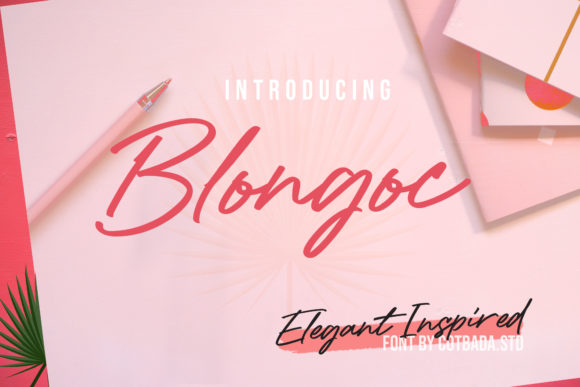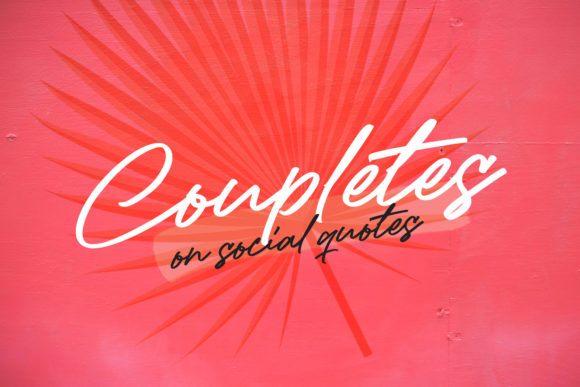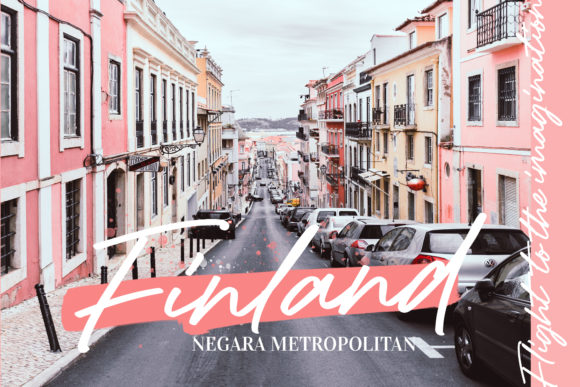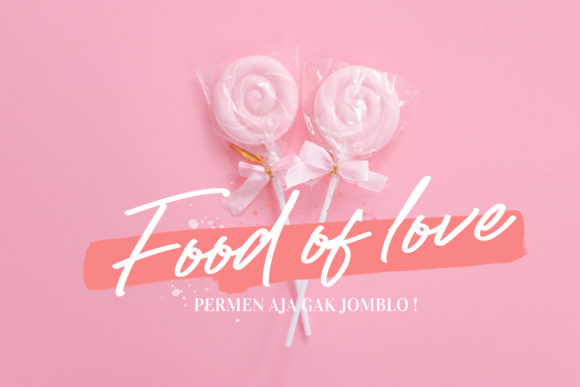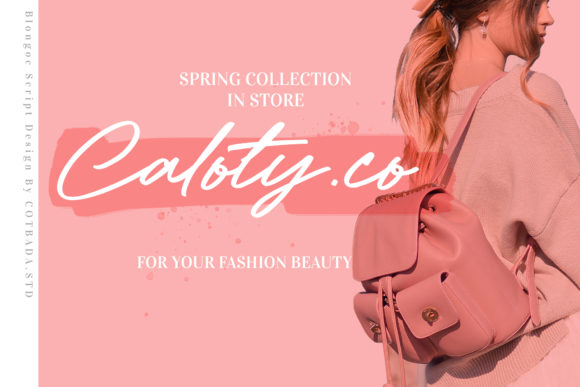
Blongoc Script Font
About Blongoc Script Font
The Blongoc is an unique, cool and modern handwritten font. It’s handwritten style makes it perfect for logos, labels, packaging designs, blog headlines, posters, and much more!